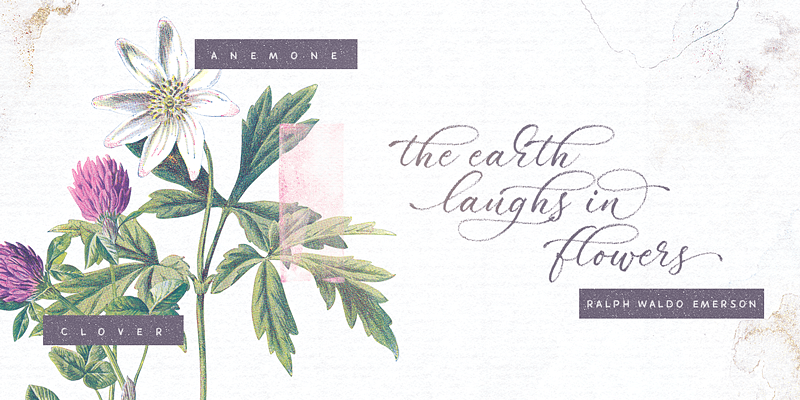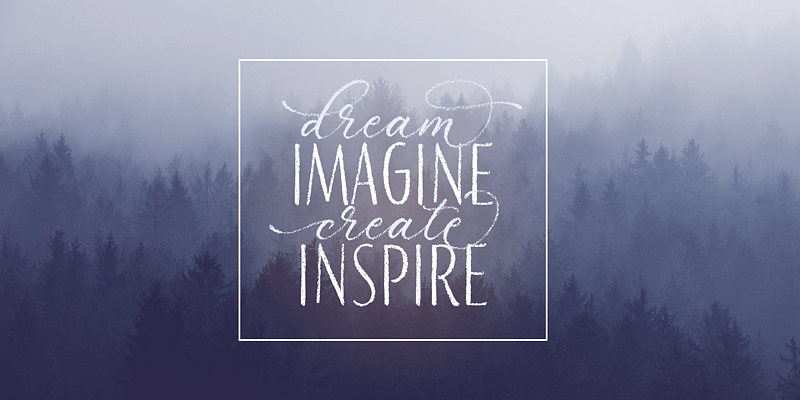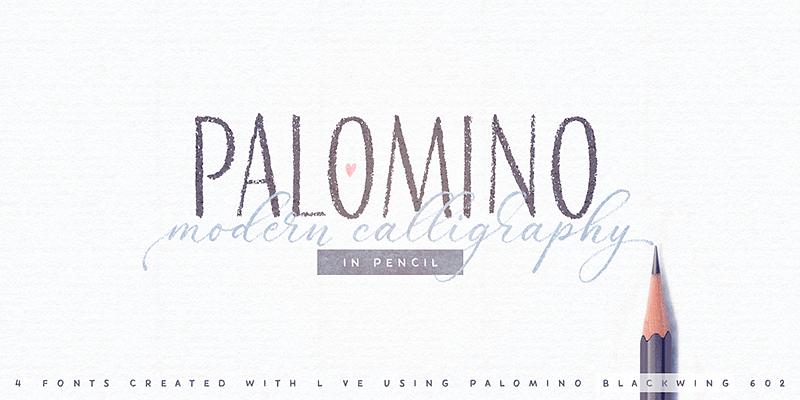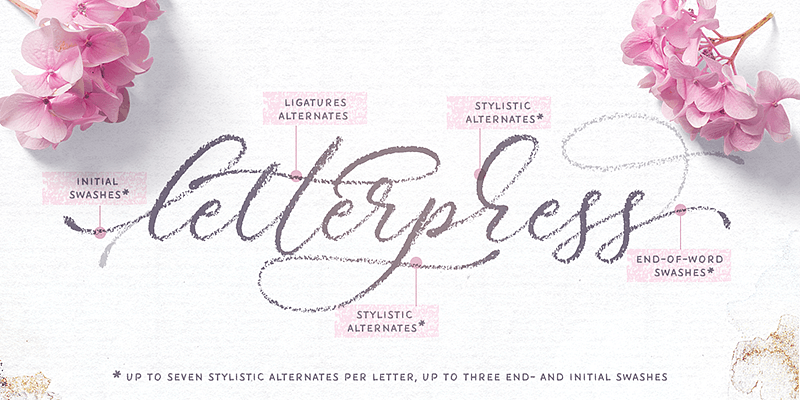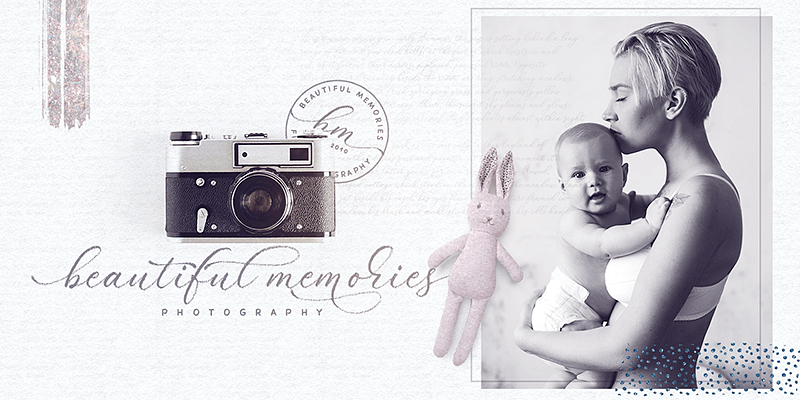
A new modern calligraphy font family created using amazing Palomino Blackwing 602 pencils (it took 3 pencils to create the whole family!). Both fonts work perfectly well together, allowing you to create stylish elegant designs with a handwritten look.
The script font is loaded with initial, medial, and terminal alternates and swashes. This versatile font family will work perfectly for fashion, e-commerce brands, wedding boutiques, photography, quotes design, and a lot more.